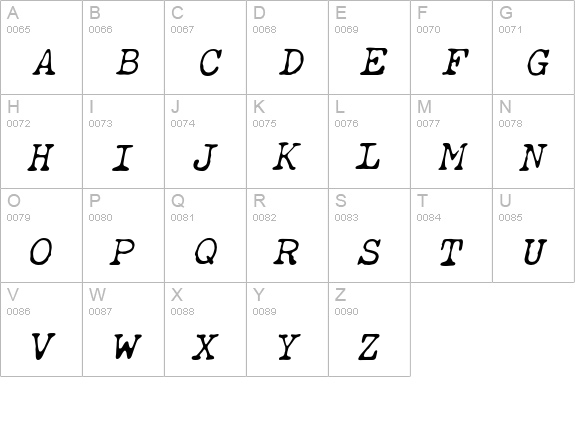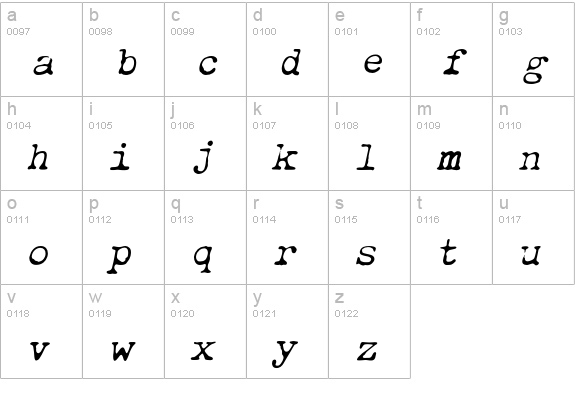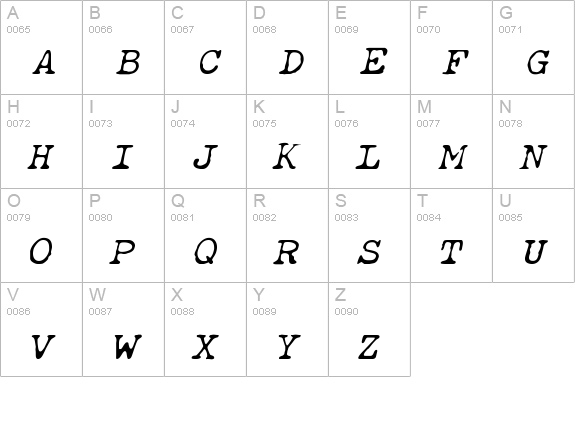
ObsoleteLightOblique Font Details
ObsoleteLightOblique font is a unique and stylish typeface that brings a touch of elegance to any design project. With its sleek and modern look, this font is perfect for creating eye-catching headings, titles, and logos. The oblique style adds a subtle slant to the characters, giving them a dynamic and contemporary feel. What sets ObsoleteLightOblique font apart is its versatility and readability, making it suitable for a wide range of applications including branding, advertising, packaging, and more. This font is designed to make a statement and leave a lasting impression on your audience. Best of all, ObsoleteLightOblique font is available for free download at FontsMarket.com, making it easily accessible for designers and creatives looking to add a touch of sophistication to their projects. Don't miss out on this opportunity to elevate your designs with this elegant and modern typeface.